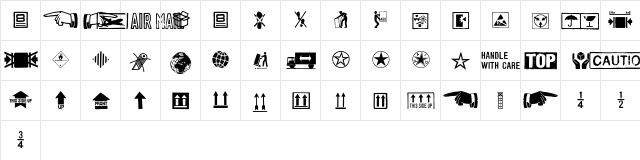
Cartonnage-Pict Regular
Design Context for Cartonnage-Pict Typeface
Cartonnage-Pict is a composed and adaptable typeface that performs quietly and consistently across a wide range of design contexts.